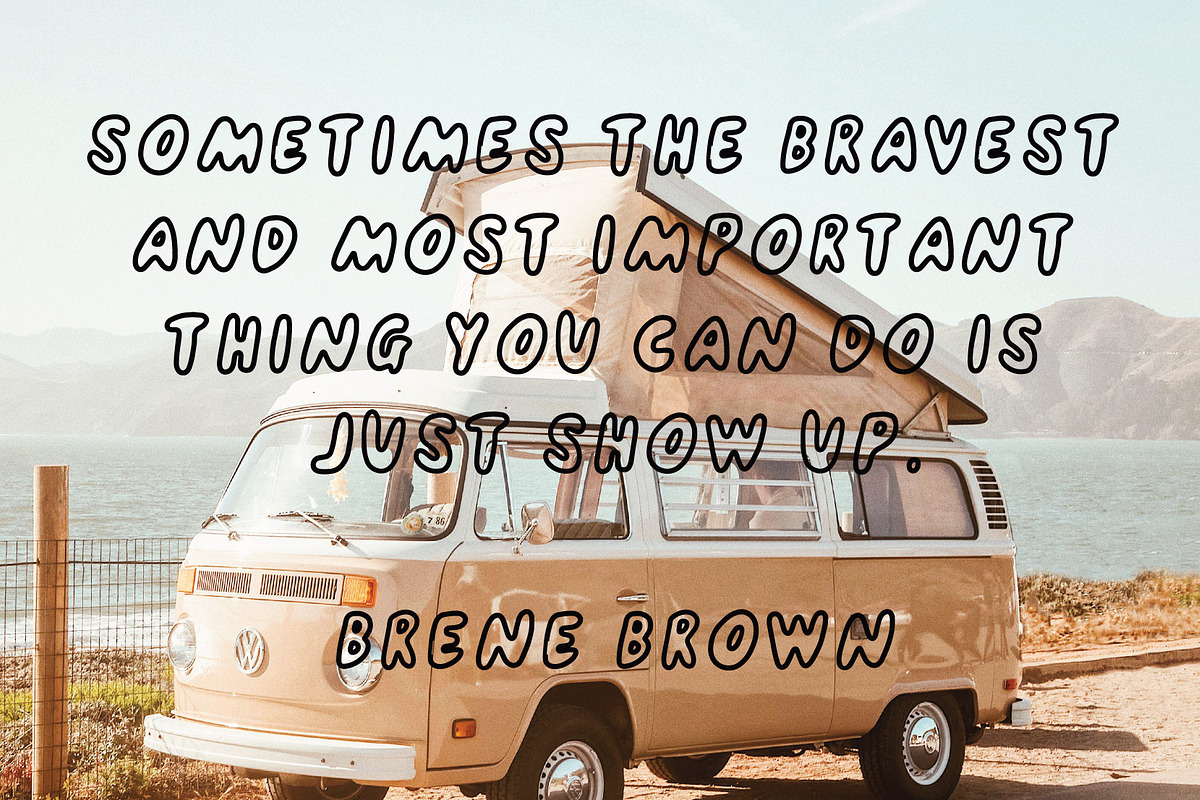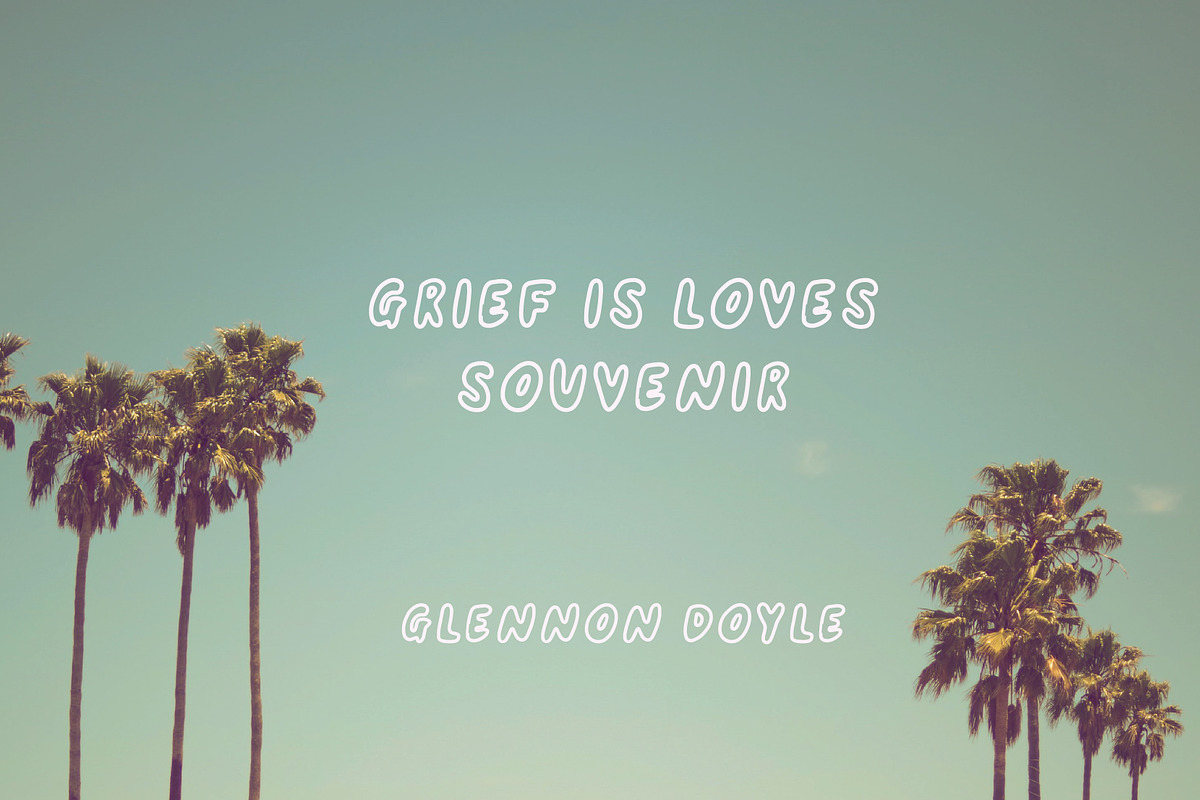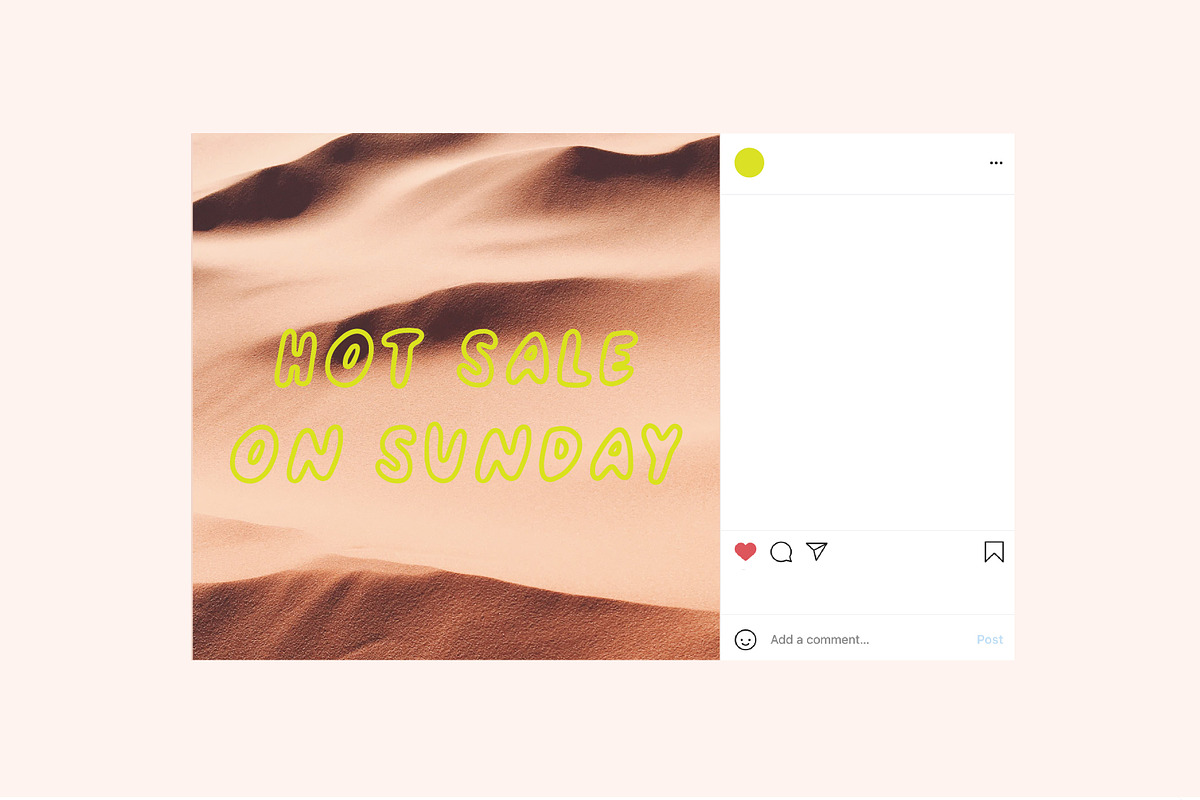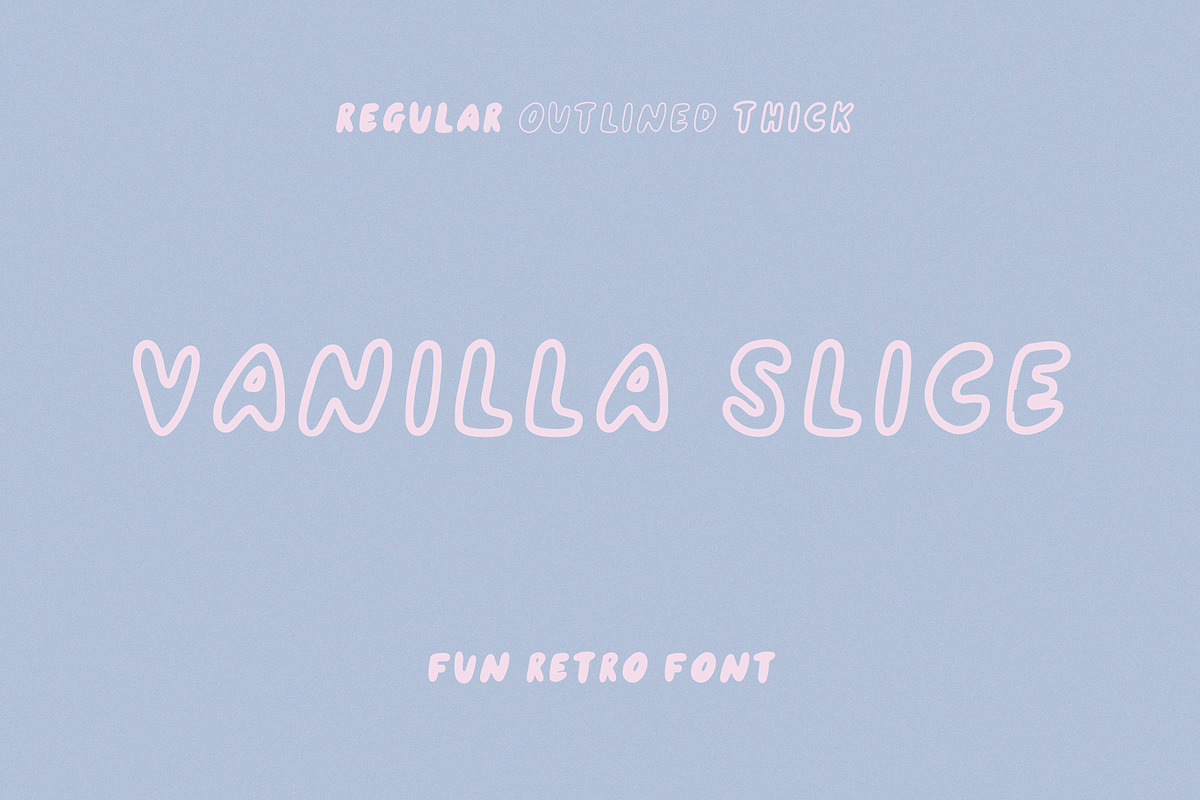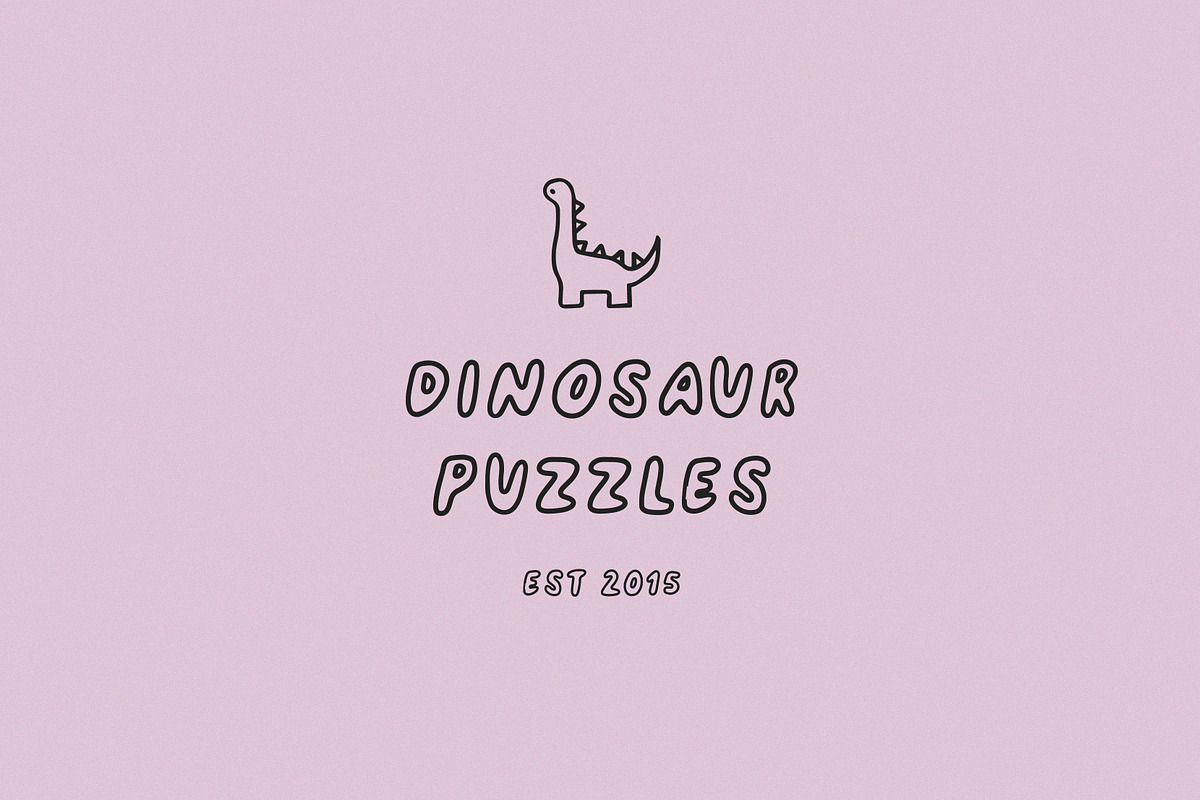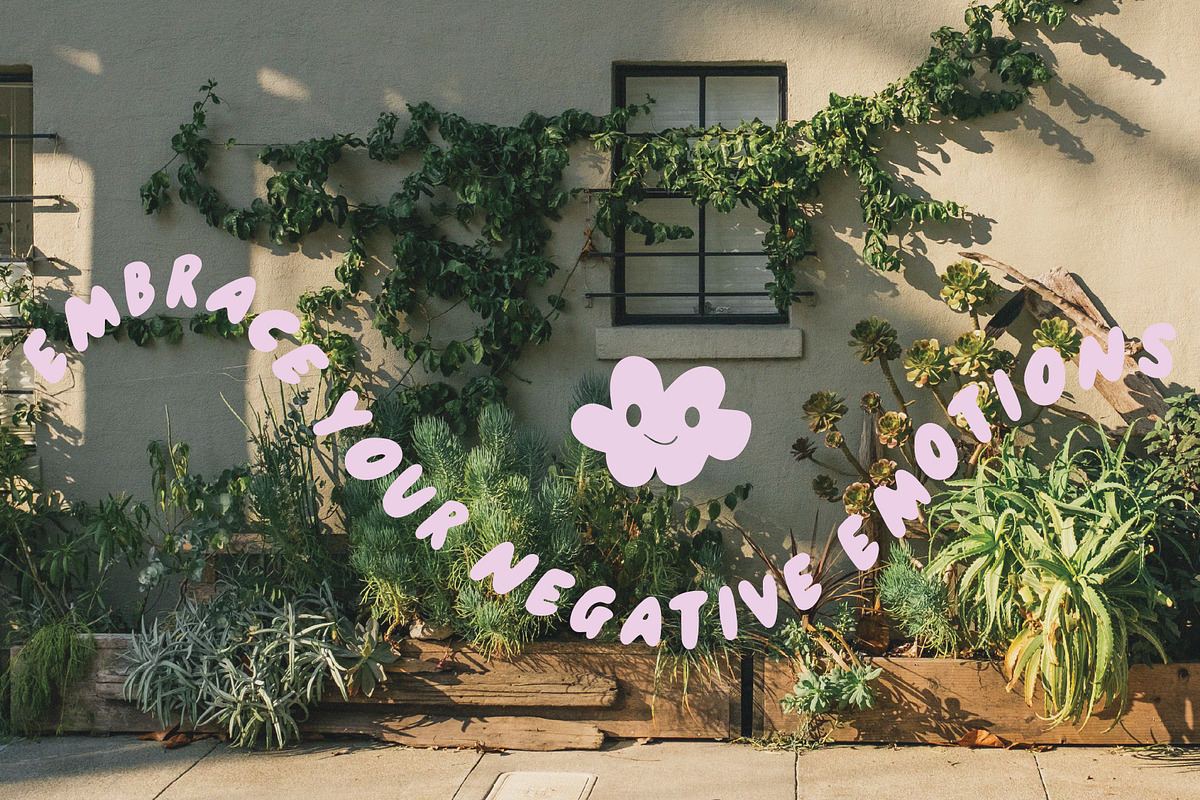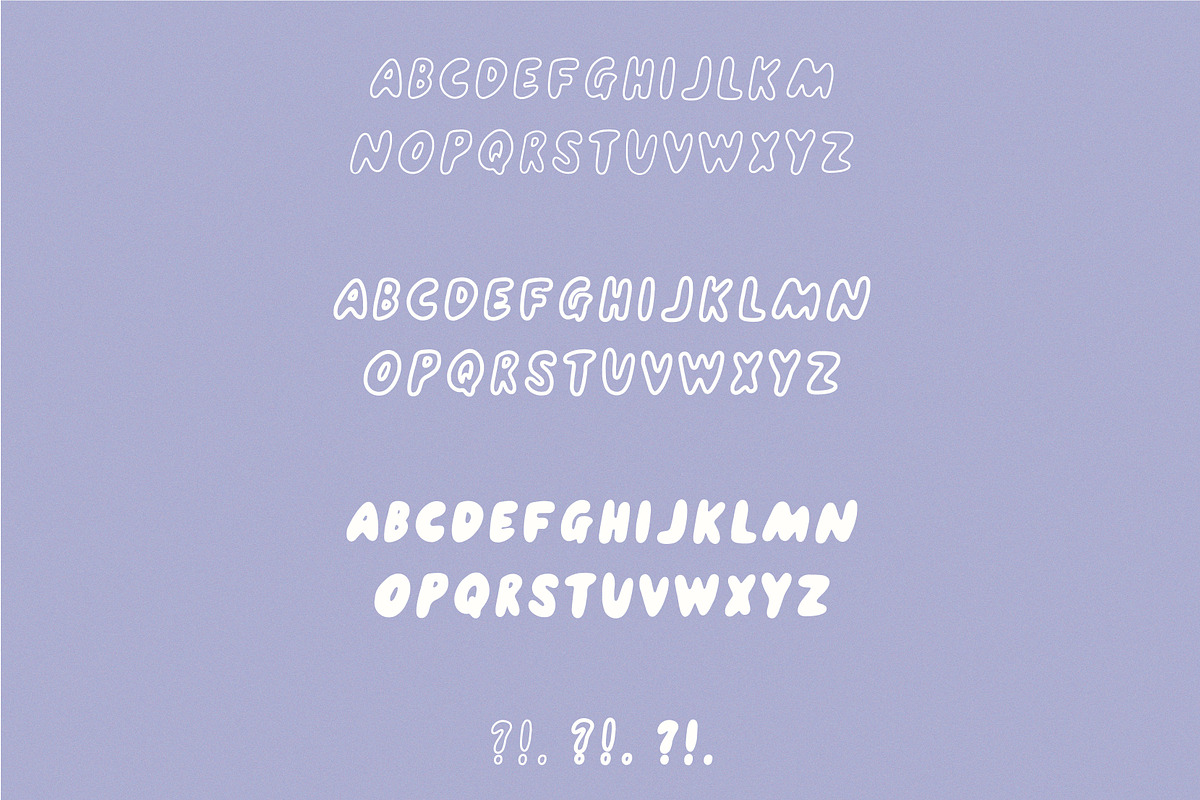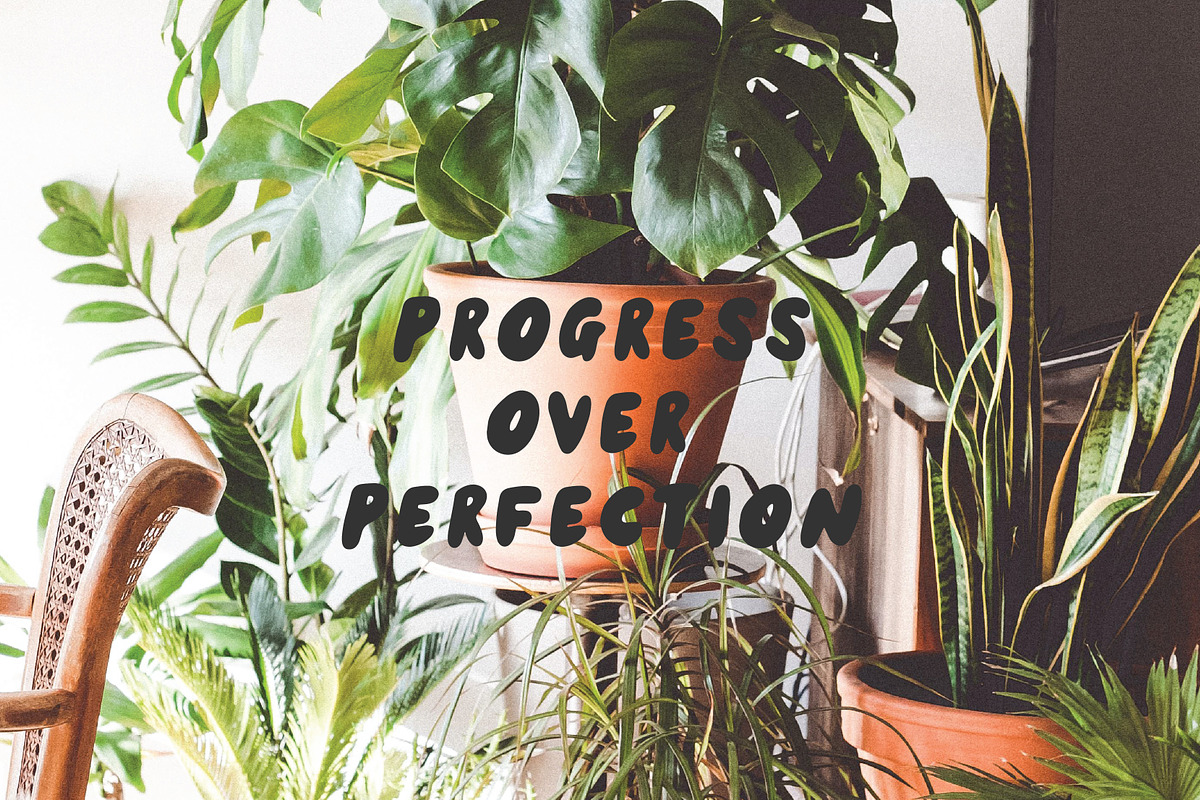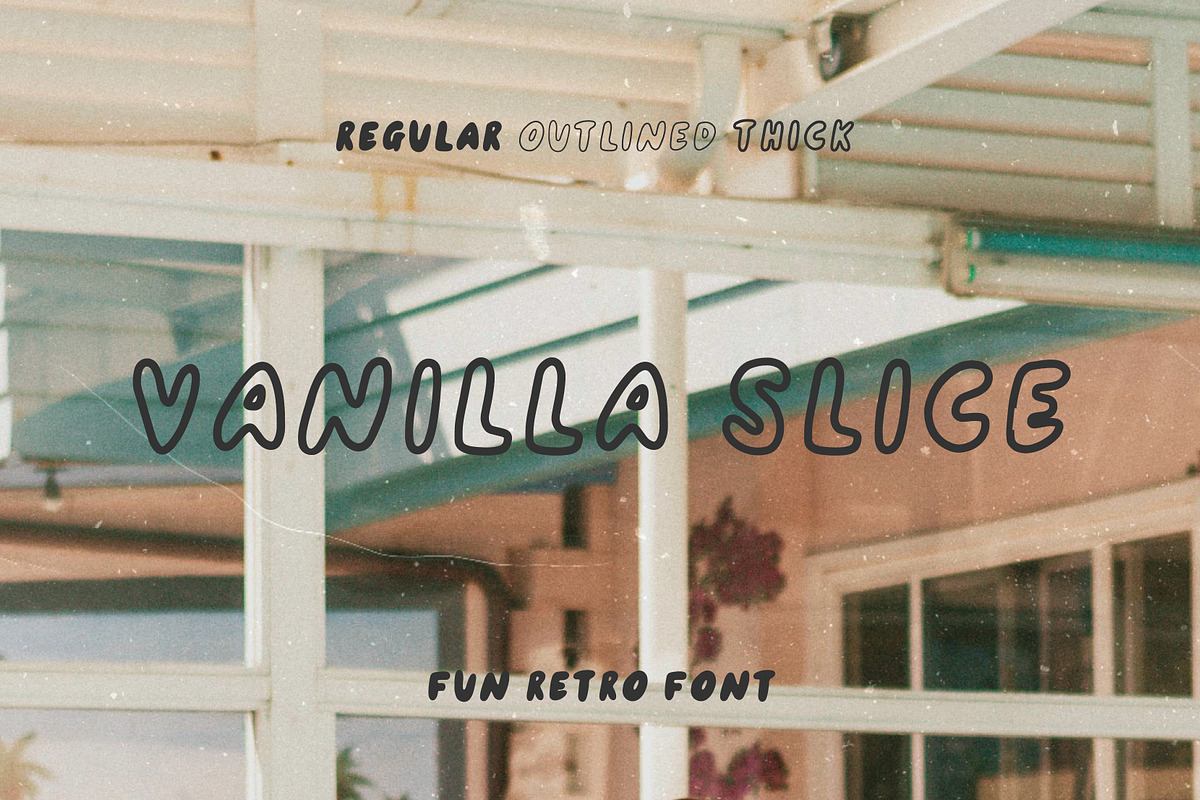
VANILLA SLICE handwritten sans serif
VANILLA SLICE | handwritten san serif font
⋒ perfect for ⋒
- handmade products
- fun brands
- ceramics
- retro branding
- playful logos
- instagram quote text